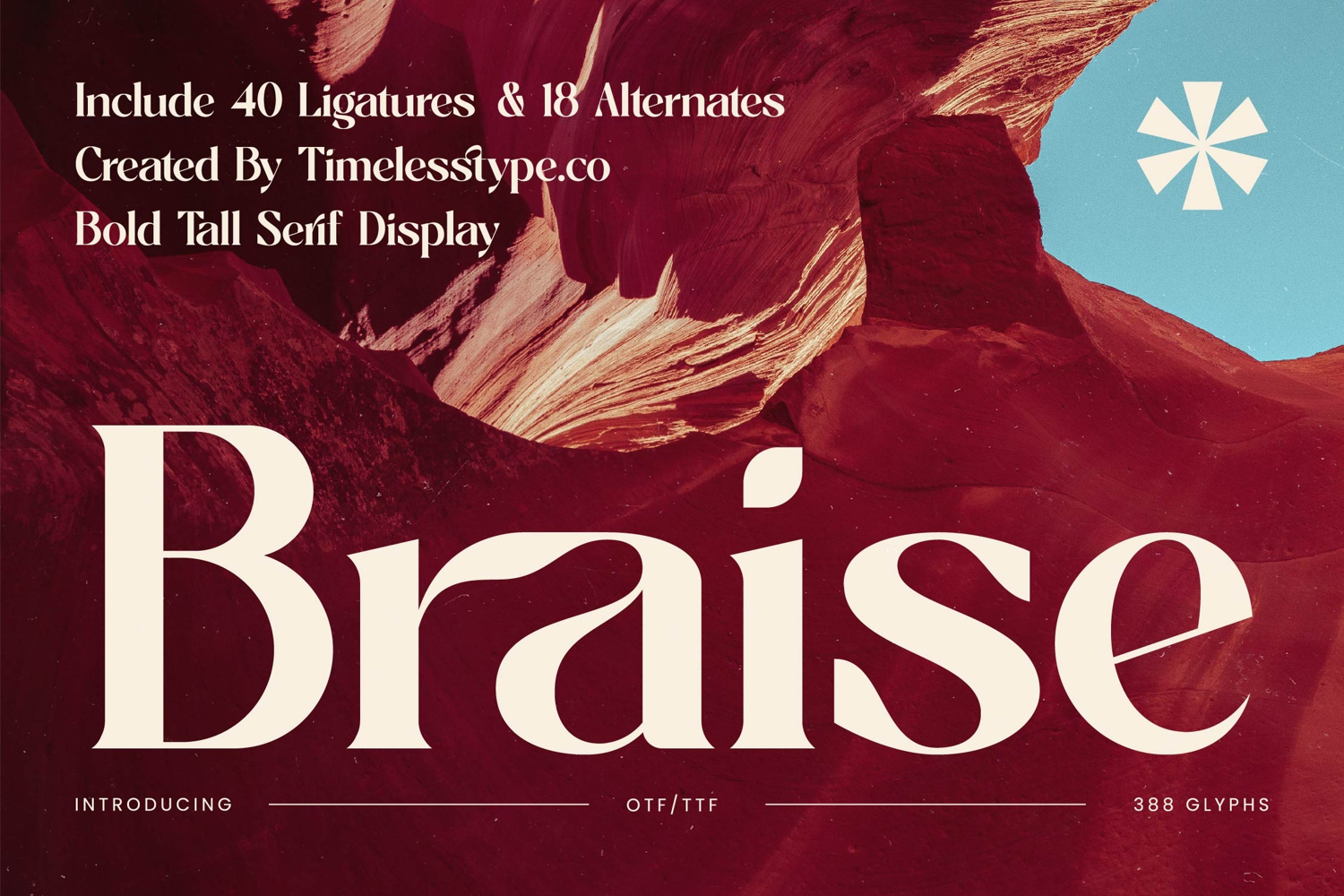
Braise - Bold Tall Serif Display
Braise Italic
Braise
Braise - Bold Tall Serif Display
Elevate your designs with the distinctive presence of Font Braise - Bold Tall Serif Display Serif Display. This magnificent display serif font commands attention with its imposing stature and refined aesthetic, effortlessly blending classic sophistication with a contemporary edge. Designed for impact, its bold lines and graceful curves create a visual harmony that is both powerful and inviting, making it an indispensable asset for creators seeking to leave a lasting impression.
Discover unparalleled typographic richness through Font Braise - Bold Tall Serif Display Serif Display's meticulous design. Boasting a striking high-contrast between thick and thin strokes, this typeface offers exceptional legibility and an air of opulence. Further enhancing its creative potential are the included 40 ligatures and 18 alternates, providing designers with an extensive toolkit to craft truly unique and expressive typographic compositions that resonate with modern elegance.
Expand your reach and communicate globally with ease. With its extensive multilingual support, Font Braise - Bold Tall Serif Display adapts seamlessly across global markets, making it incredibly versatile for international projects. This comprehensive language coverage ensures your message maintains its intended impact and sophisticated appeal, transcending linguistic barriers with a consistent, professional aesthetic, perfect for diverse audiences.
Font Braise - Bold Tall Serif Display is the ultimate choice for projects demanding a touch of grandeur and undeniable presence. It is perfect for luxury branding, exclusive packaging, impactful editorial design, elegant magazine layouts, and captivating headline treatments. This font injects instant authority and a sense of premium quality into any visual communication, solidifying your brand's position at the forefront of distinguished design.